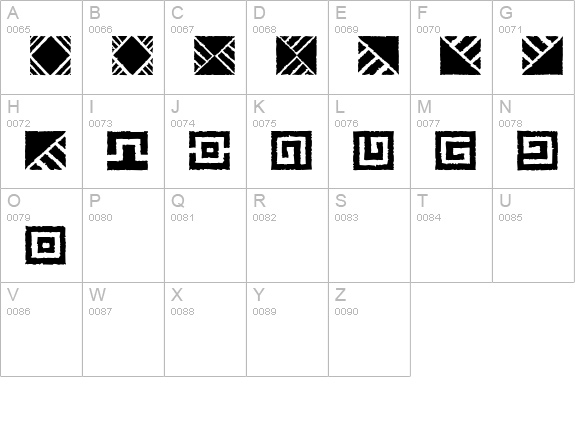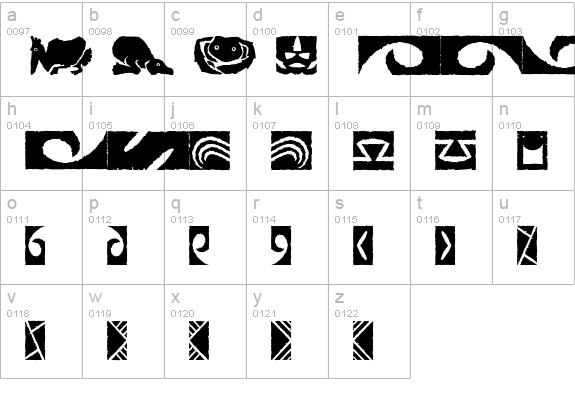
Stoned-OrnamentsTwo font is a unique and captivating typeface that will add a touch of elegance and sophistication to any design project. This ornamental font features intricate details and artistic elements that make it stand out from the crowd. With its sleek and modern appearance, Stoned-OrnamentsTwo font is perfect for creating eye-catching logos, branding materials, invitations, and more. The best part about Stoned-OrnamentsTwo font is that it is completely free to use and download. You can easily access this stunning font at FontsMarket.com and start incorporating it into your projects right away. Whether you're a designer, artist, or just someone looking to add a special touch to your creations, Stoned-OrnamentsTwo font is the perfect choice. Download it today and let your creativity soar!